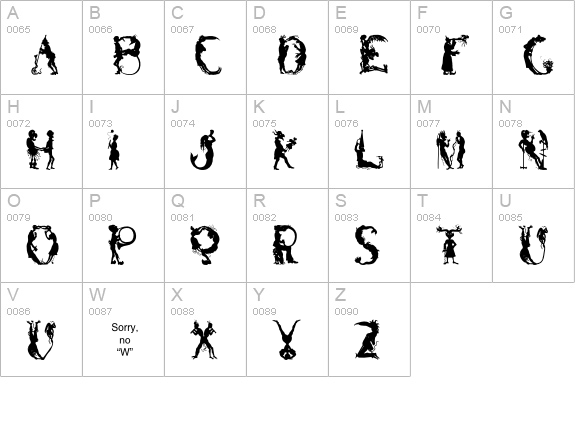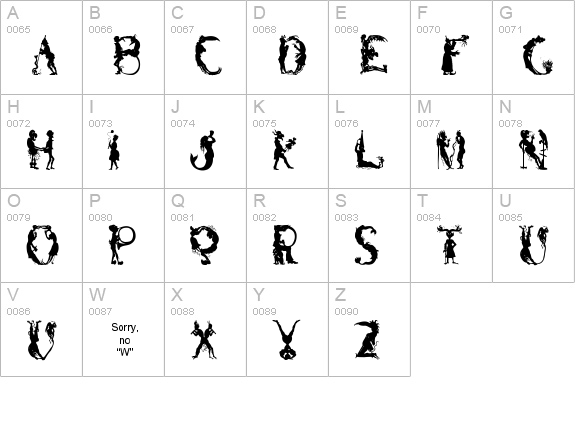
Bizarro Font Details
Introducing Bizarro font, a quirky and unconventional typeface that is sure to make your designs stand out from the crowd. With its whimsical and offbeat appearance, Bizarro font is perfect for adding a touch of eccentricity to your projects. This unique font features distorted letterforms and playful details that will add a touch of fun to any design. The best part? Bizarro font is completely free to download at FontsMarket.com! Whether you're working on a poster, logo, or any other creative project, this font is sure to bring a sense of originality and charm. Don't miss out on the opportunity to add this one-of-a-kind typeface to your collection. Download Bizarro font today and let your creativity run wild!